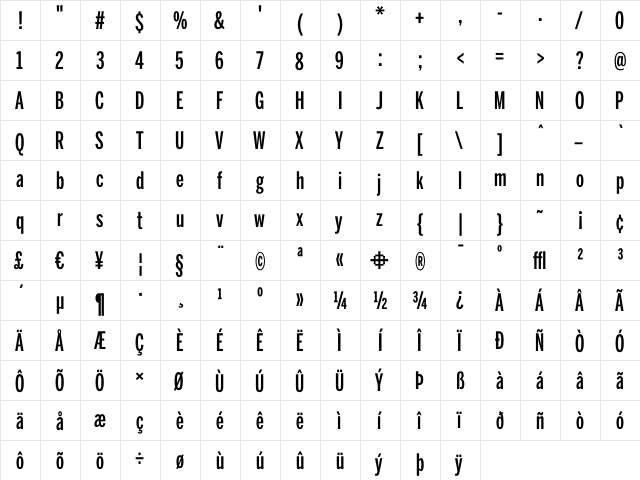
BentonSansExtraComp Medium
Design Context for BentonSansExtraComp Typeface
BentonSansExtraComp is a composed and adaptable typeface that performs quietly and consistently across a wide range of design contexts.